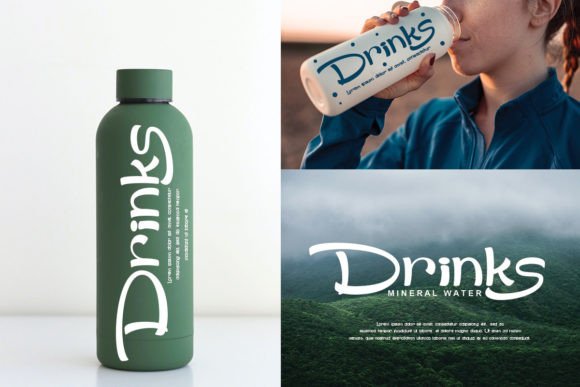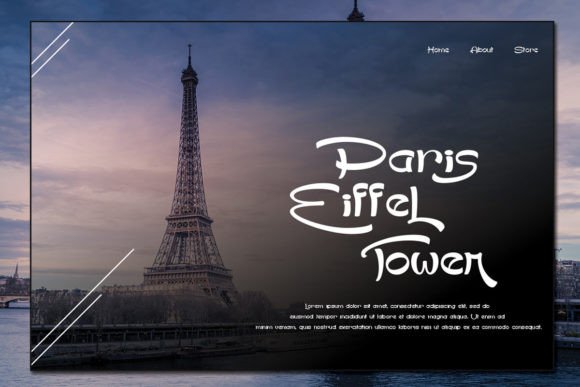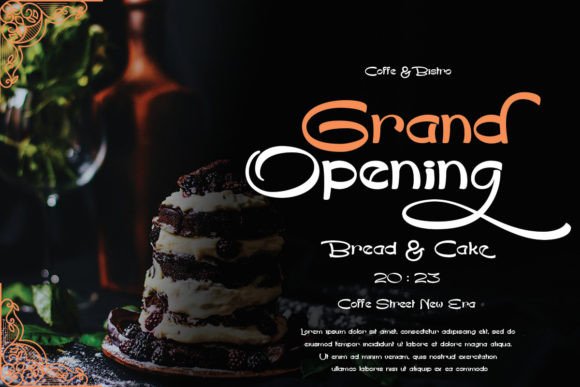
Introduction to Shark Times Font
Shark Times is a unique, handcrafted display font.
Use it to make your designs bolder or to add a bit of personality It is perfect for banners, child related projects, logos, social media and so much more.
Shark Times Font offers exceptional quality and versatility, making it a valuable addition to your design toolkit. Whether you’re creating for personal projects or commercial use, Shark Times Font delivers professional results.